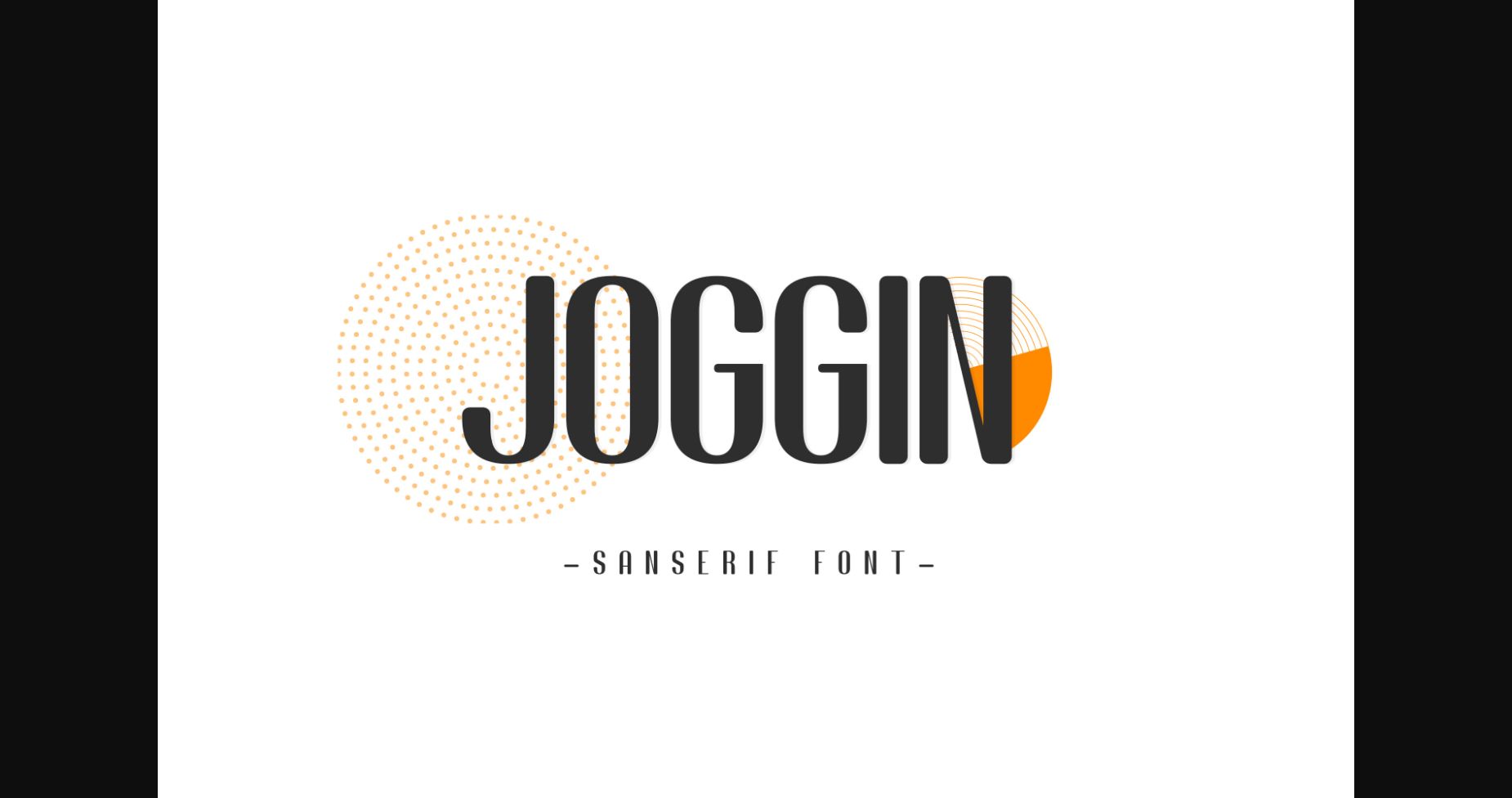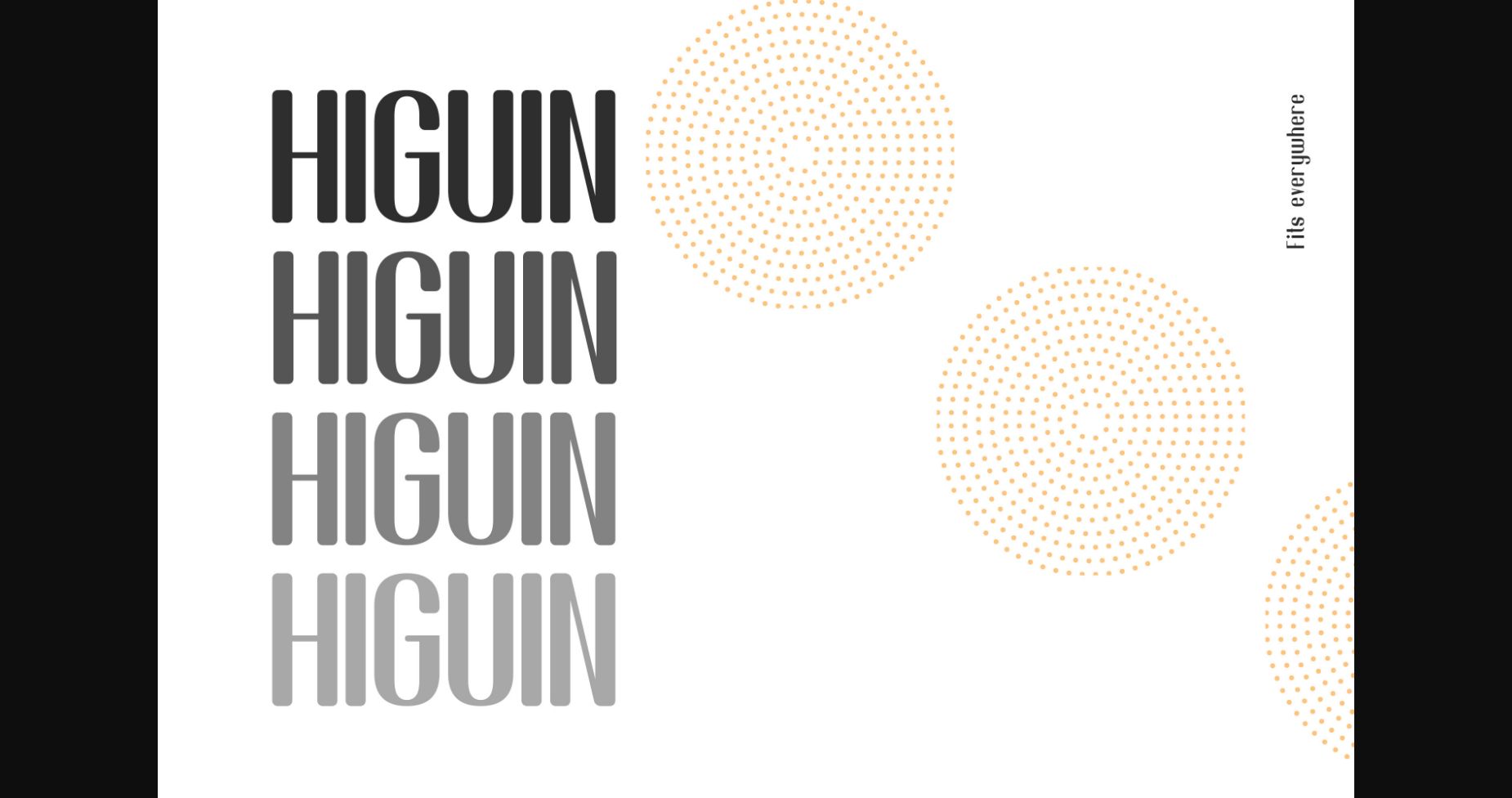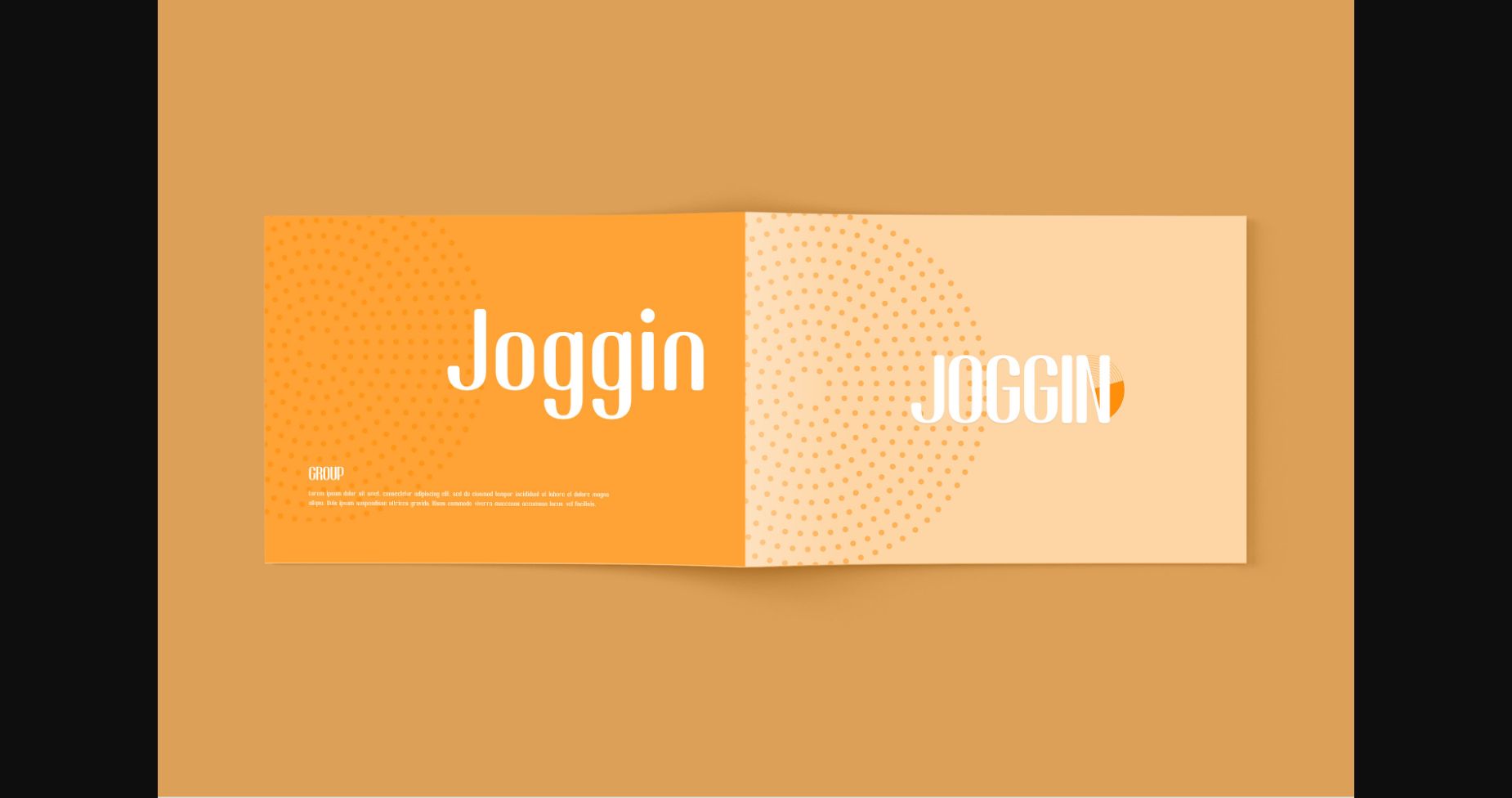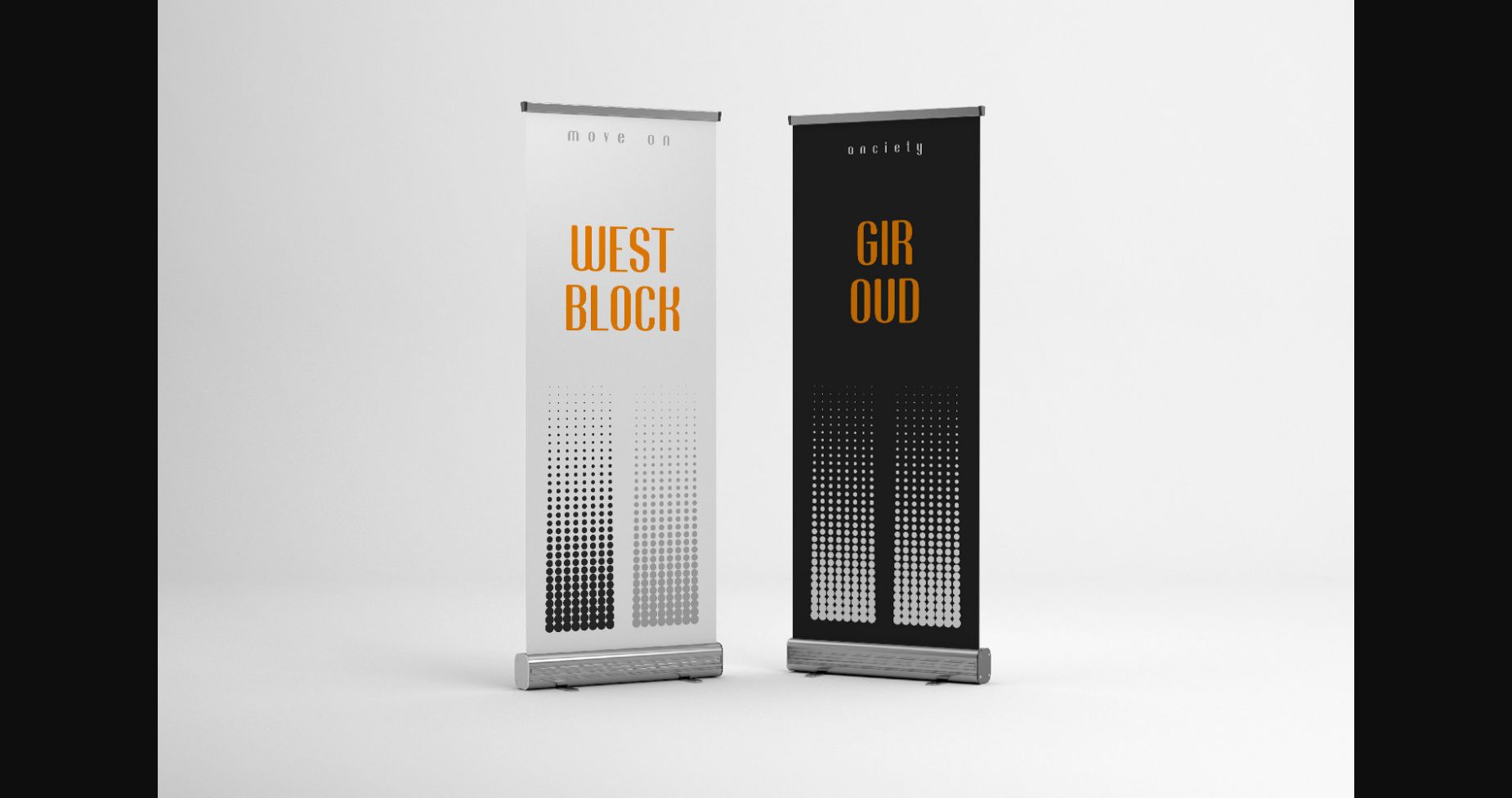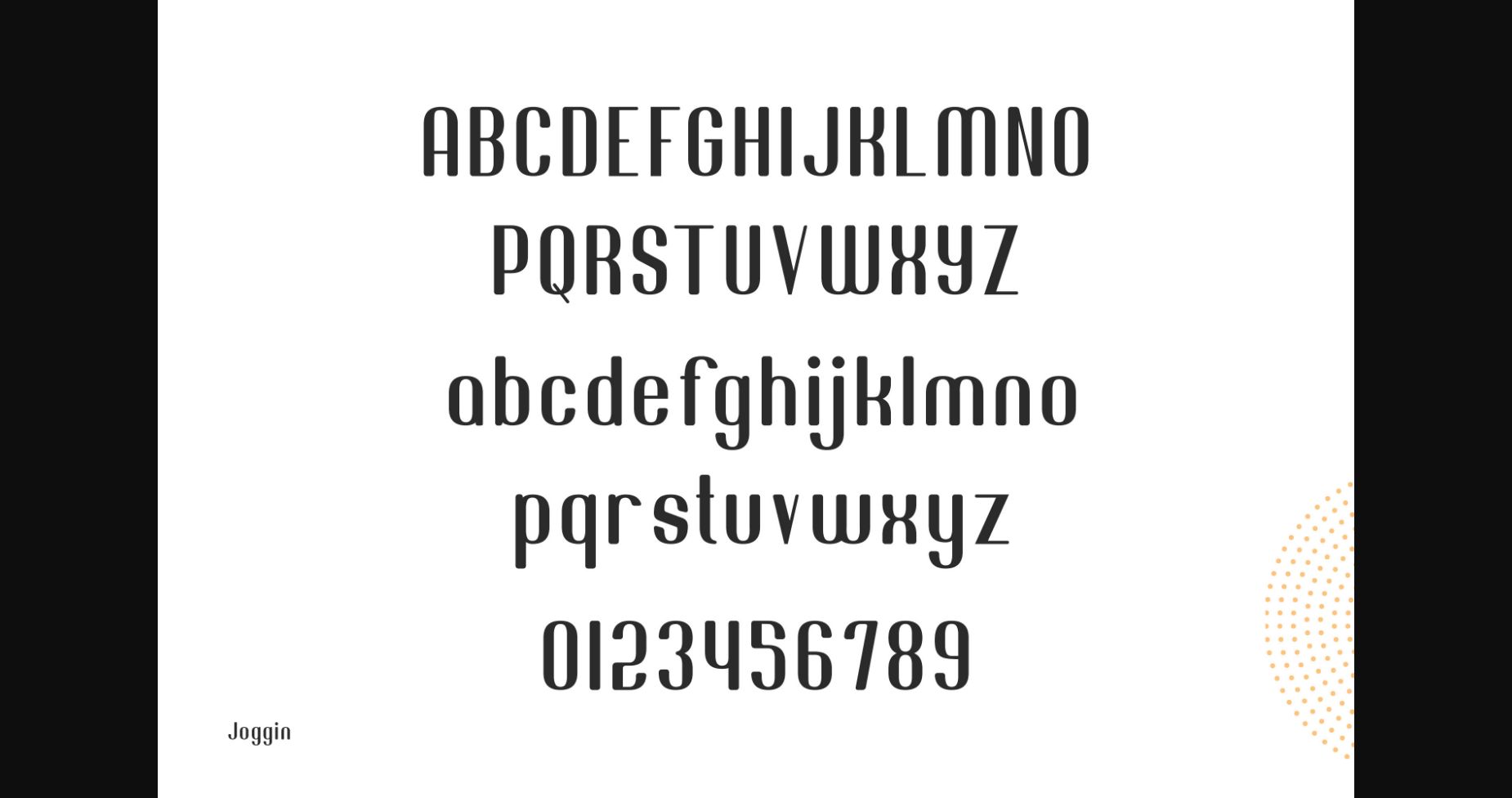
Joggin is a cool, modern and adaptable sans serif font. No matter the topic, this font will be an incredible asset to your fonts’ library, as it has the potential to elevate any creation.